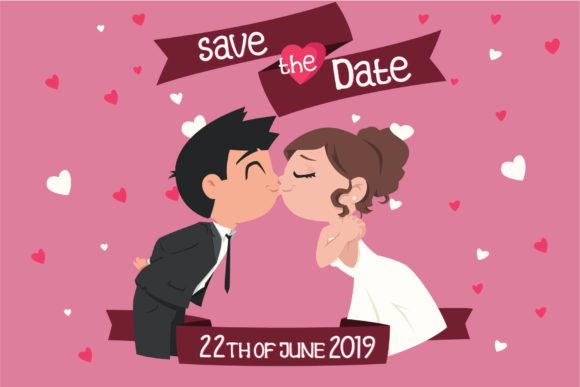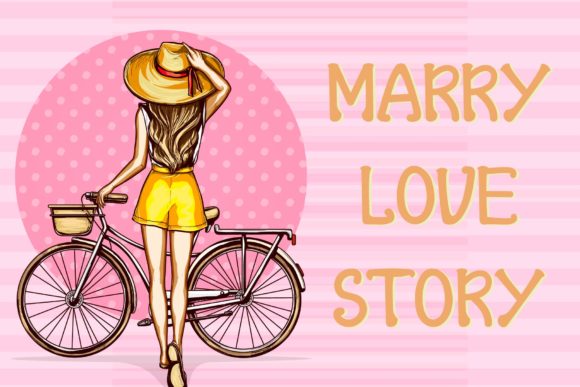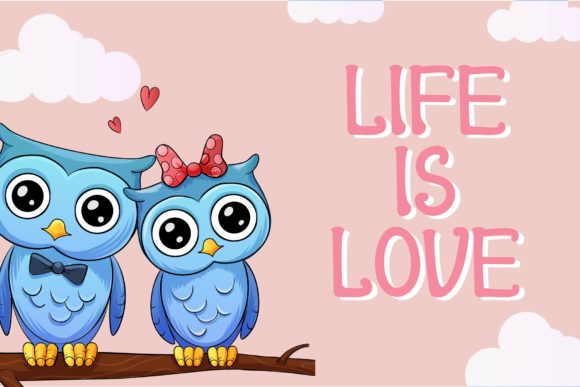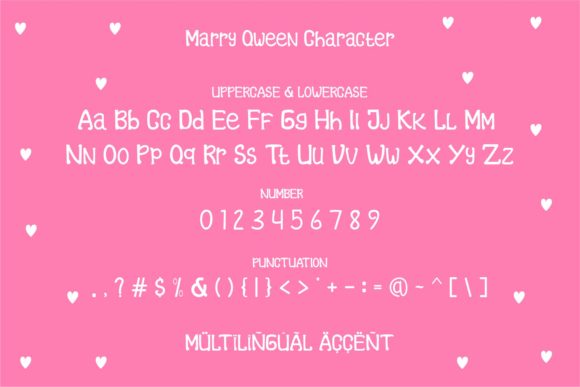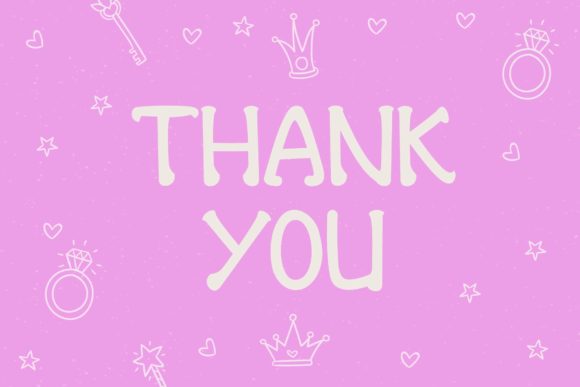
Introduction to Marry Qween Font Font
Fonts play a crucial role in design, and the Marry Qween Font font is a typeface that brings both character and versatility to any project. Whether you’re working on a branding project, a website, or a print design, the Marry Qween Font font offers a unique style that can elevate your work.
Marry Qween is a simple and neat display font.
Friendly and natural, this font will immediately fit any design idea you have in mind .
Key Features of Marry Qween Font Font
Why Choose Marry Qween Font Font?
The Marry Qween Font font is more than just a typeface – it’s a design tool that helps you communicate your message with style and clarity. Its unique character set and versatile design make it suitable for a wide range of applications, from elegant invitations to bold headlines.
With its carefully crafted letterforms and balanced proportions, the Marry Qween Font font ensures readability and visual appeal across all mediums.
What makes Marry Qween Font font special?
The Marry Qween Font font stands out with its unique design, exceptional readability, and versatility across various design applications.